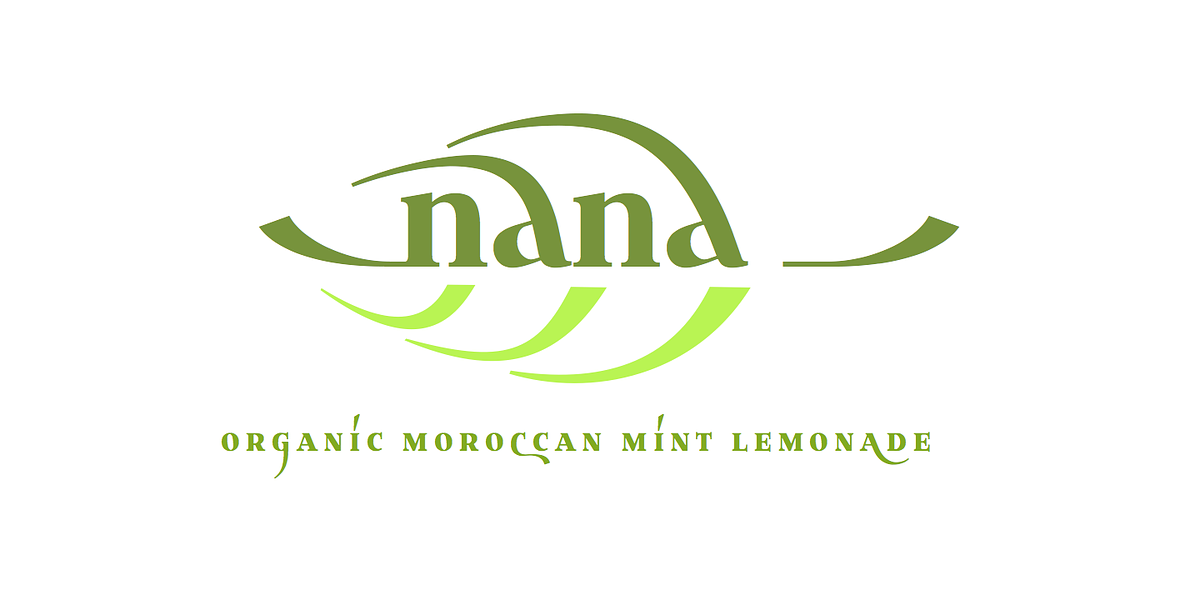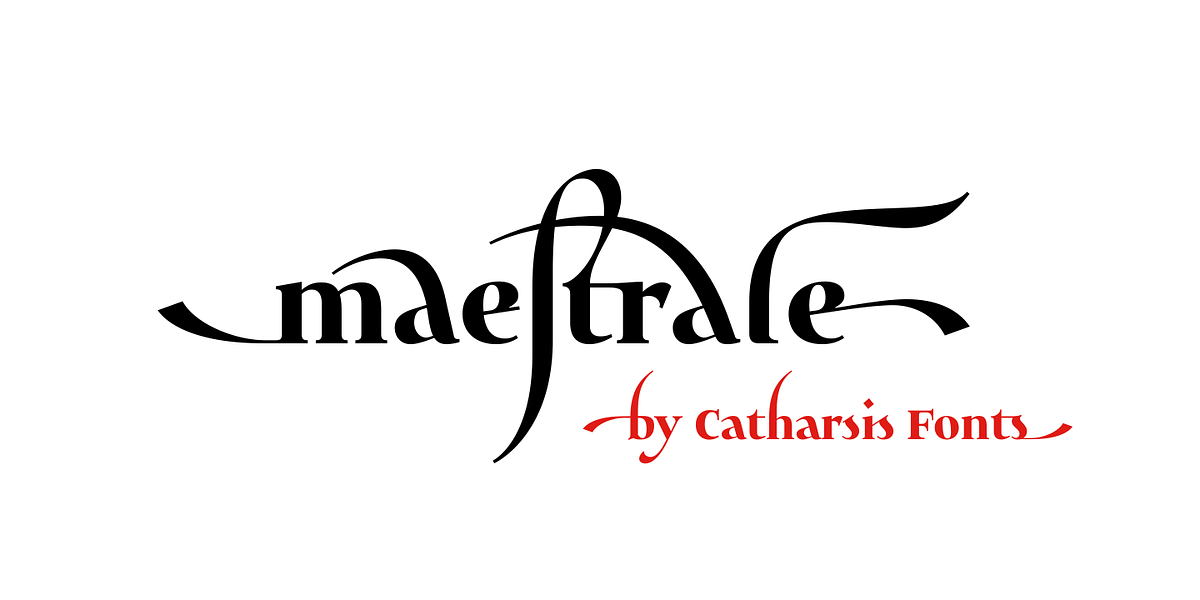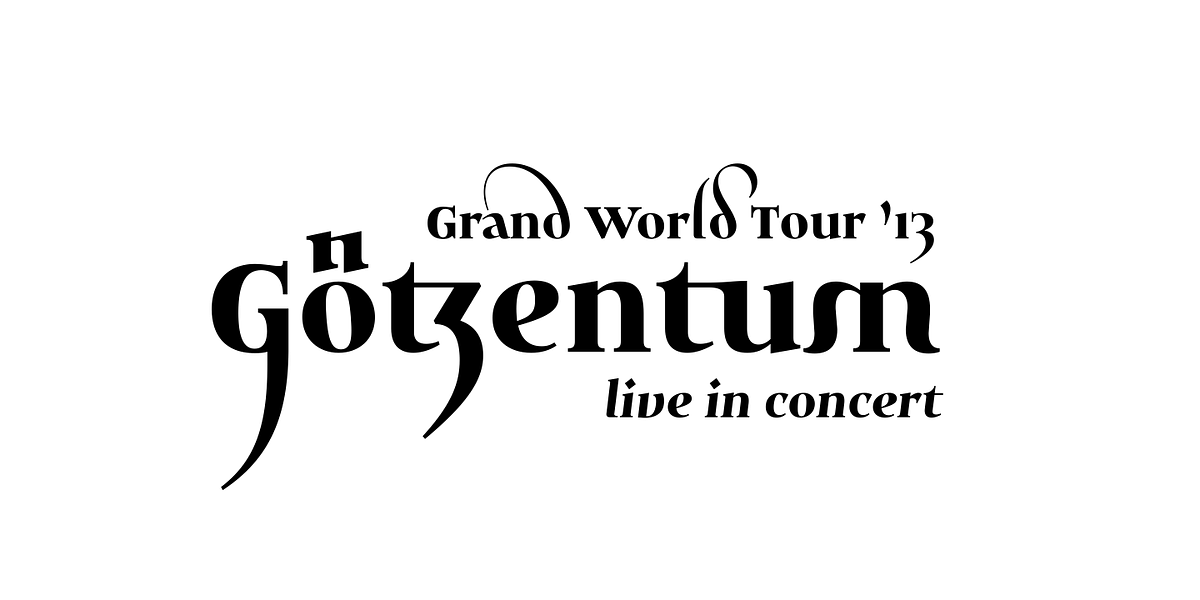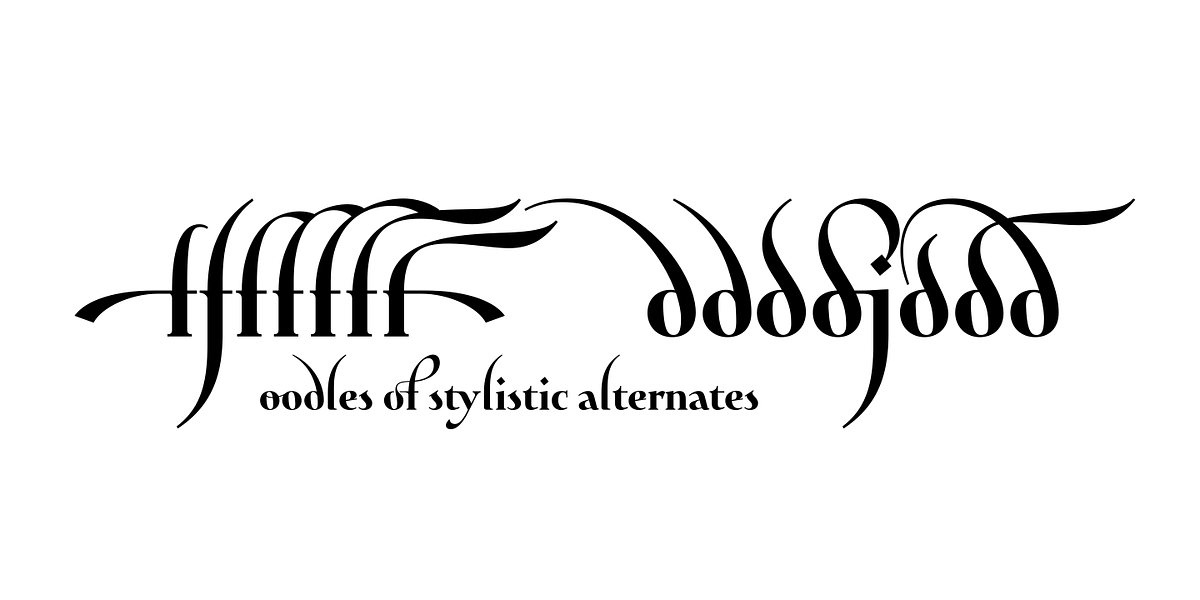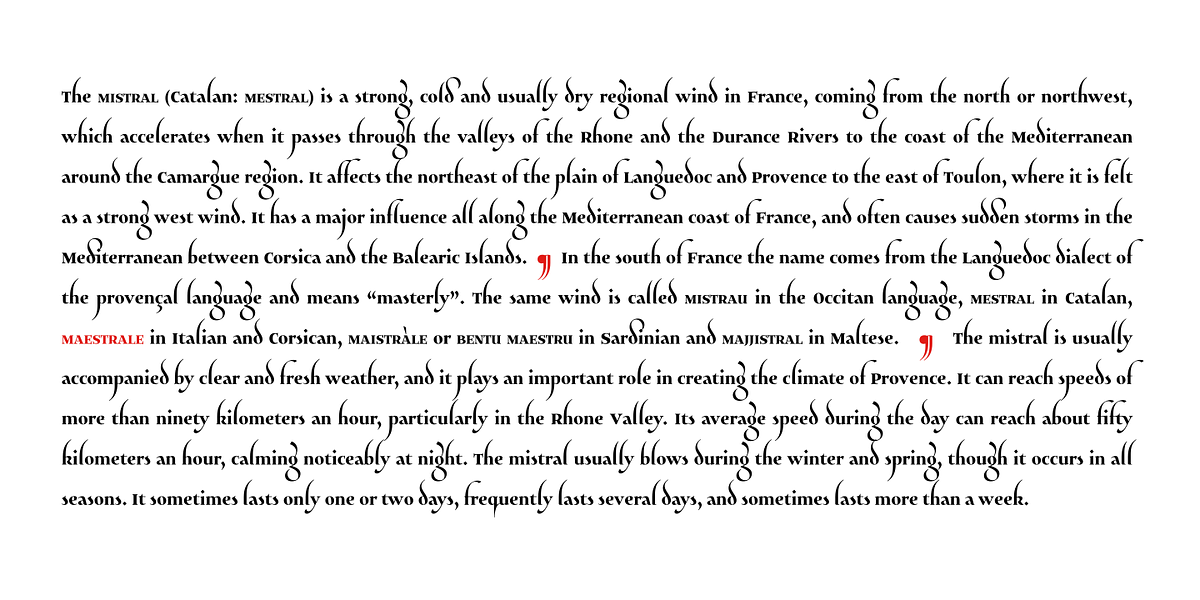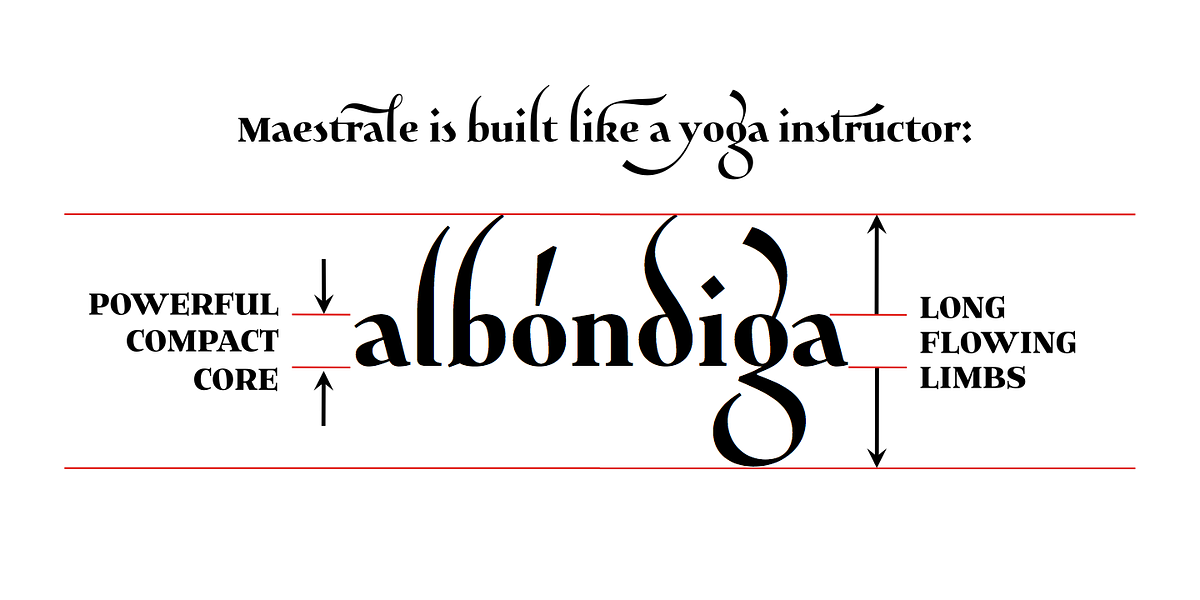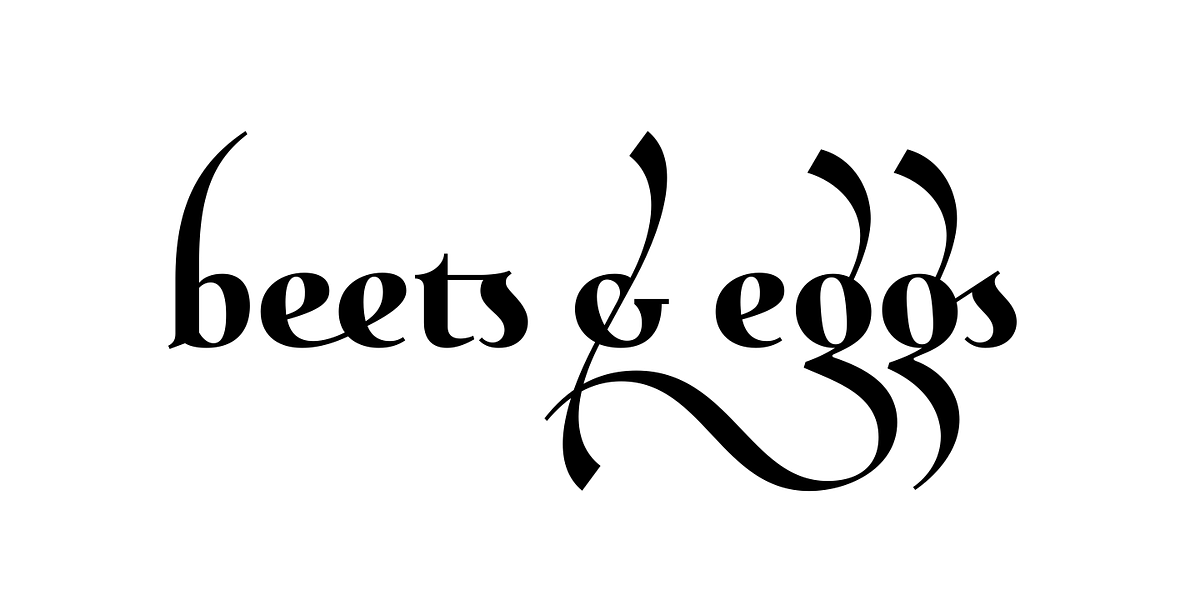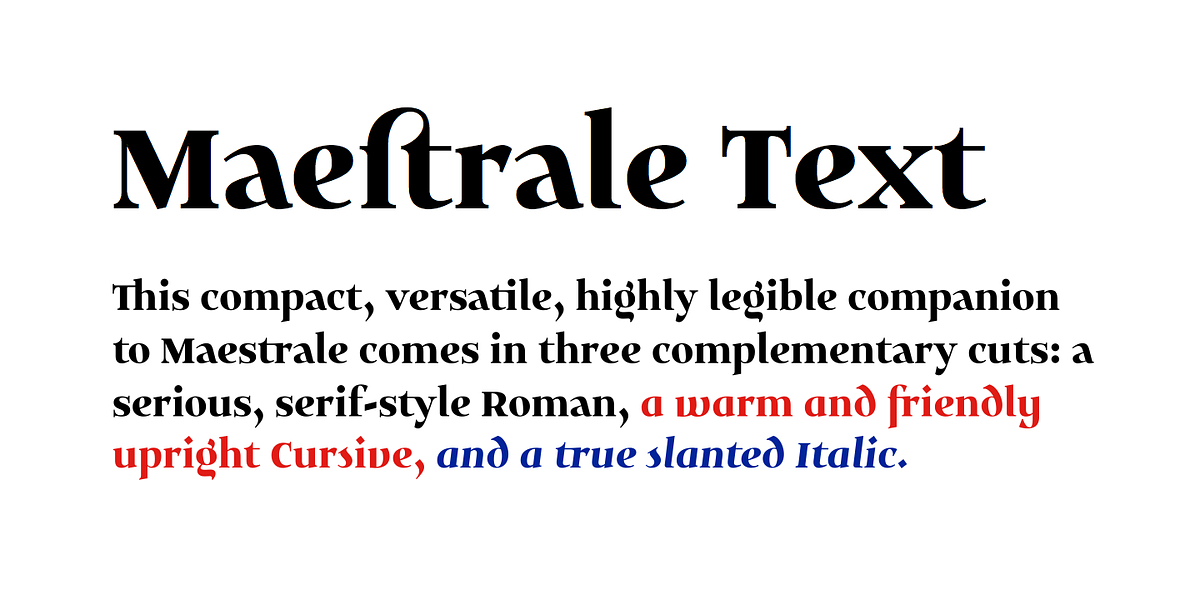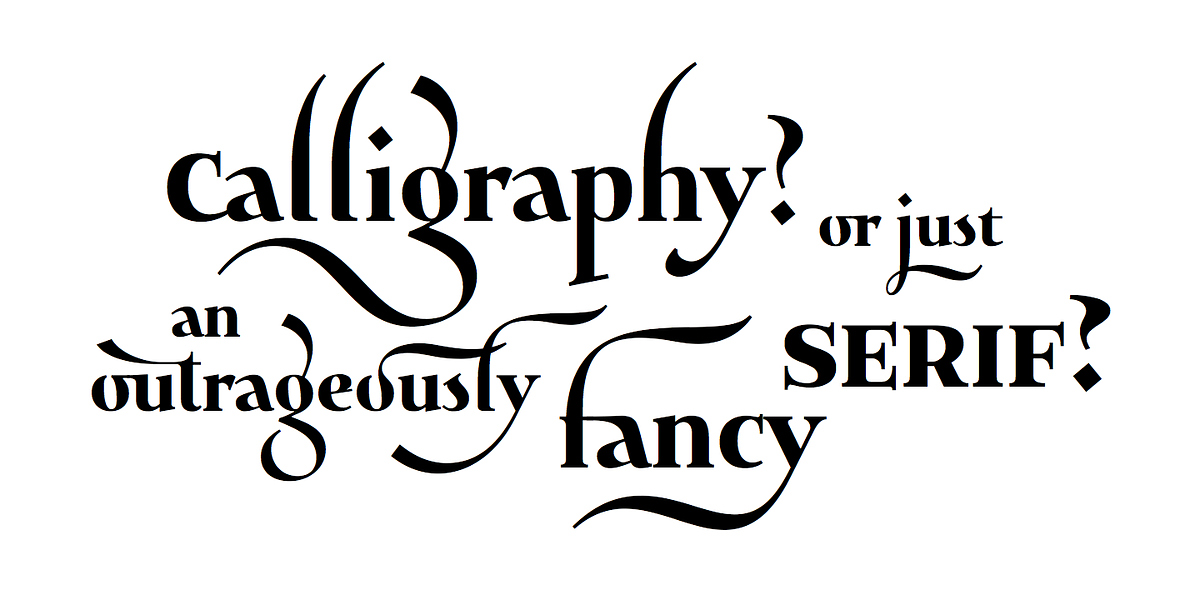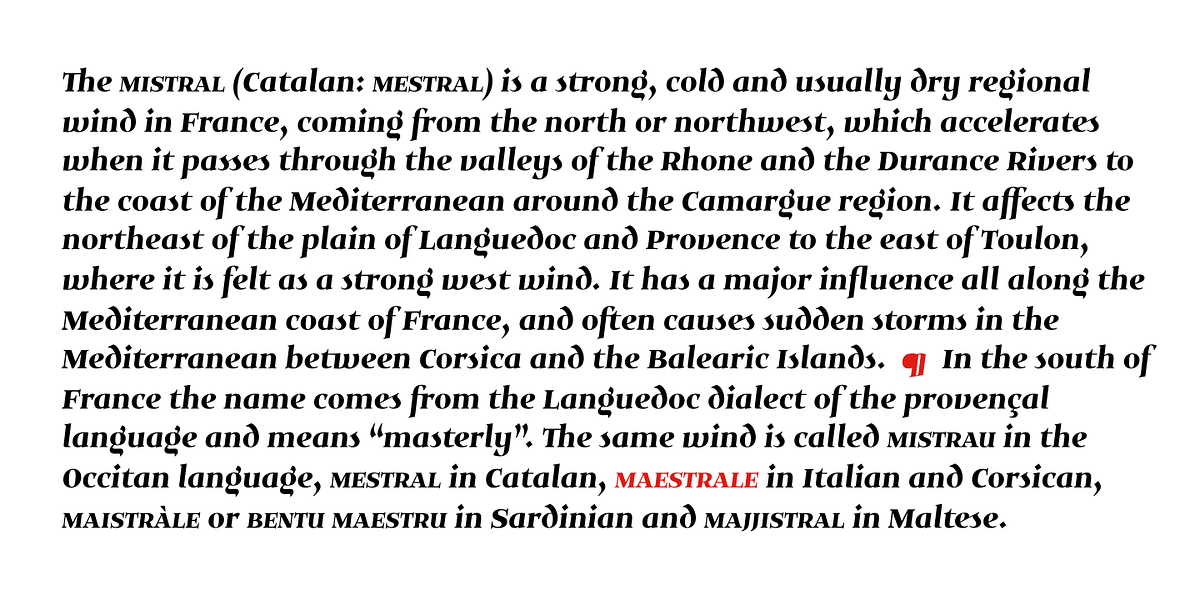
Maestrale
Maestrale is a calligraphic display typeface with long, flamboyant extenders. Its design emphasizes confident letterforms and flowing textures, making it suitable for branding and decorative purposes. The font offers extensive OpenType features including stylistic alternates, ligatures, small capitals, and initial, terminal, and linking forms to enhance its versatility.